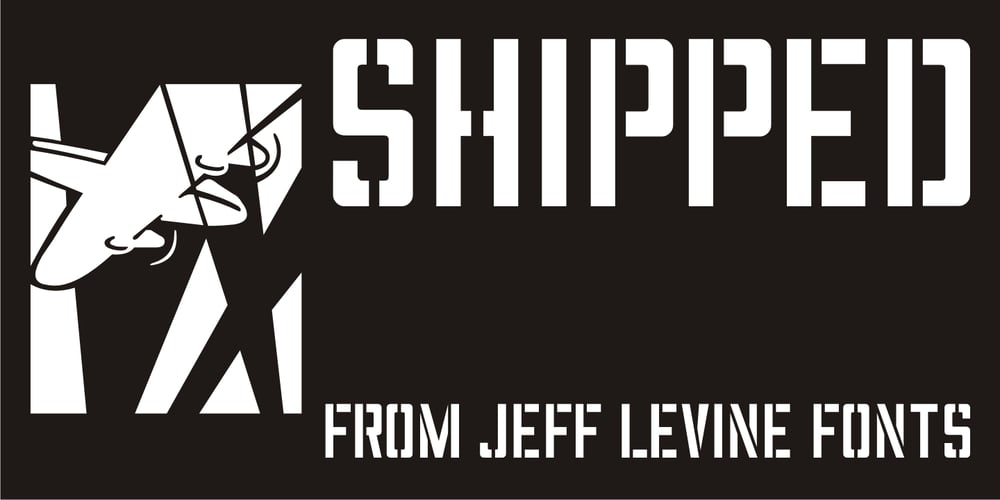
Shipped JNL
Shipped JNL font
Shipped JNL Font Family was designed by Jeff Levine and published by Jeff Levine. Shipped JNL contains 1 styles and family package options. One of six fonts inspired by old stencil lettering guides, Jeff Levine has drawn a font which captures the feel of simpler times when signs and posters were stencilled by school children, teachers, librarians and shopkeepers.